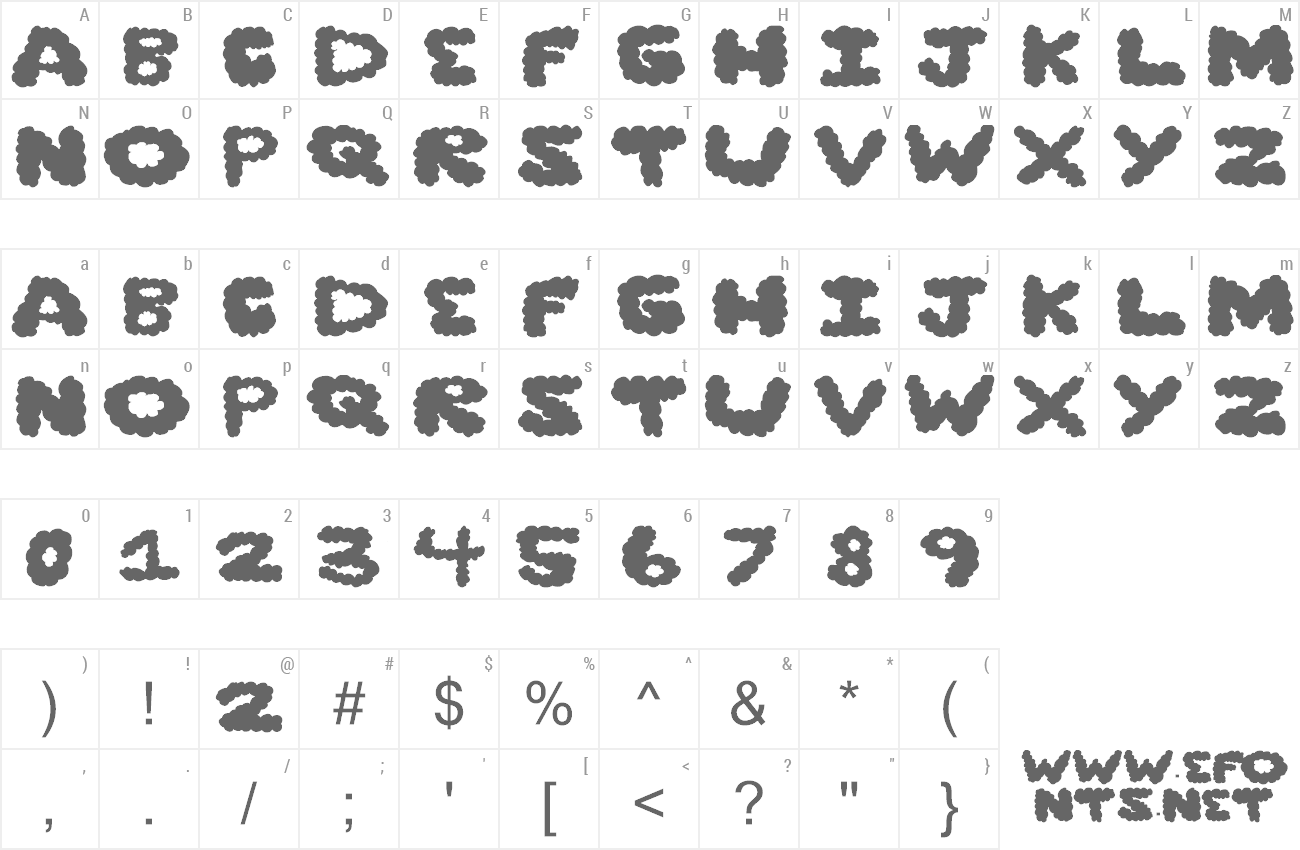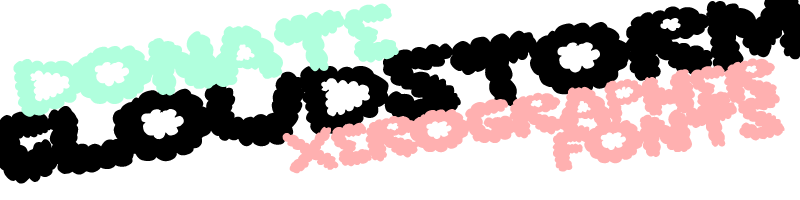
Preview and download Cloudstorm Font. Created by Xerographer Fonts in Fancy Cartoon styles with Donationware license.
Clouds. Stormy. Cloudstorm. It's fun. Like a bubble font. FREE TO TRY! Donate $10 for Unlimited Personal Use paypal: maxinfeld@hotmail.com Add on XEROGRAPHER Facebook: www.facebook.com/infeld Contact for Commercial |